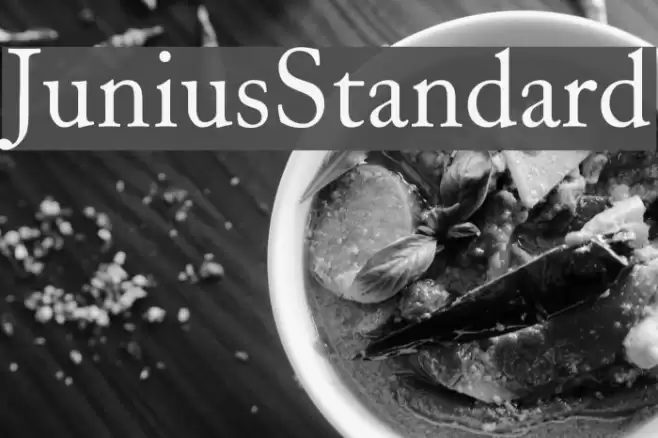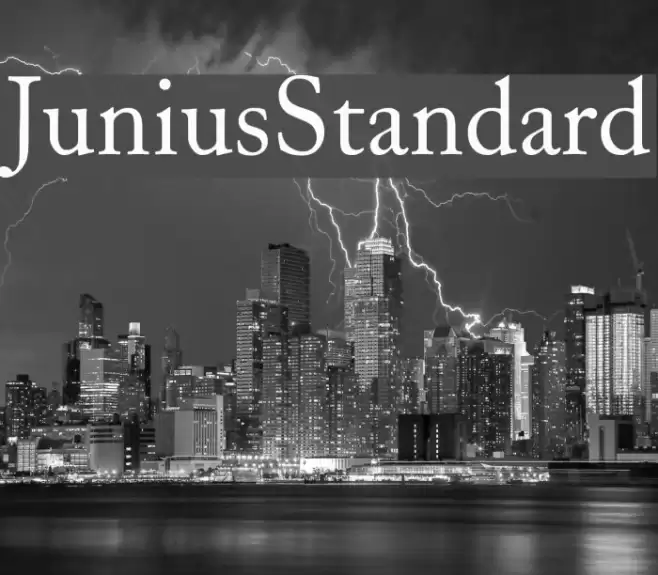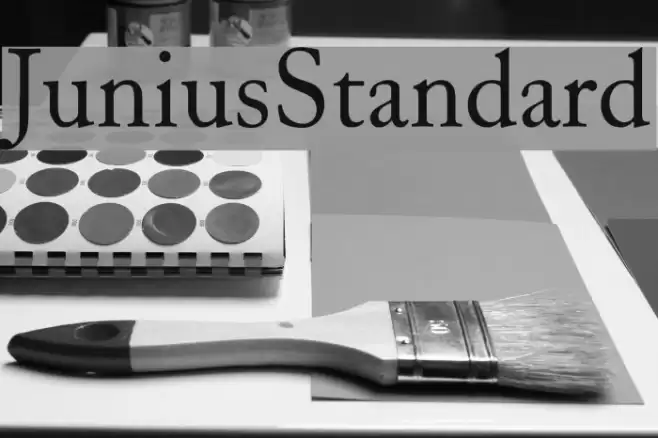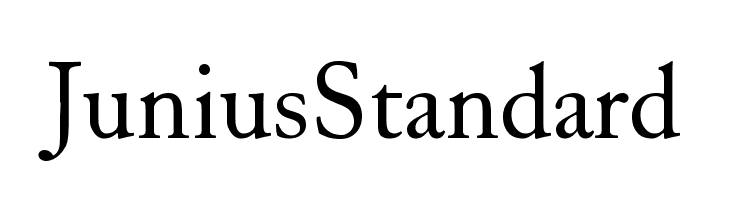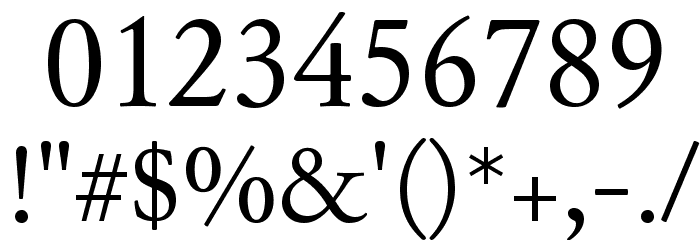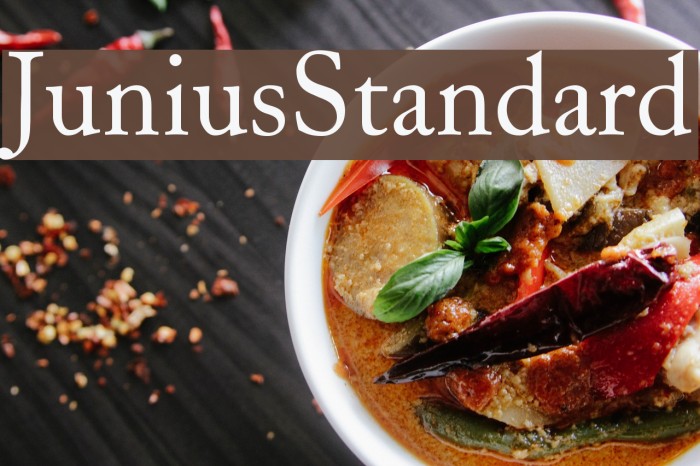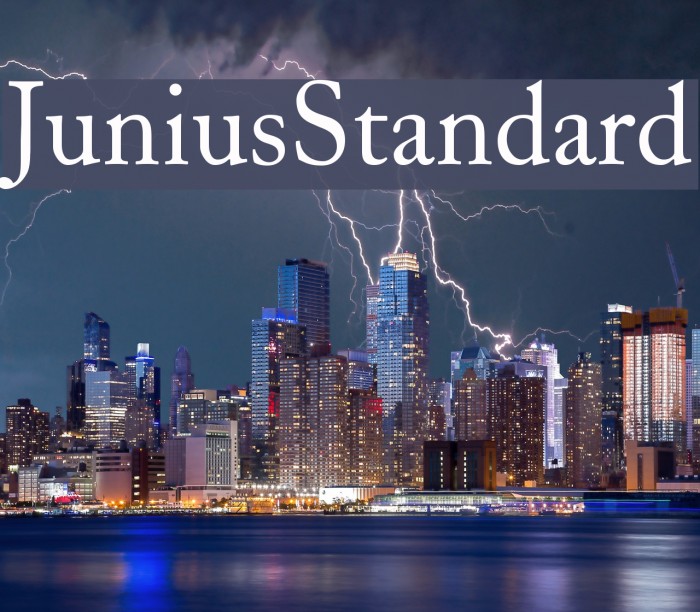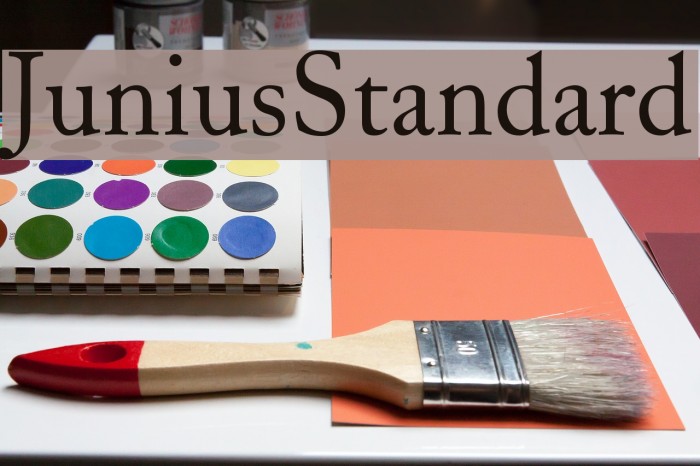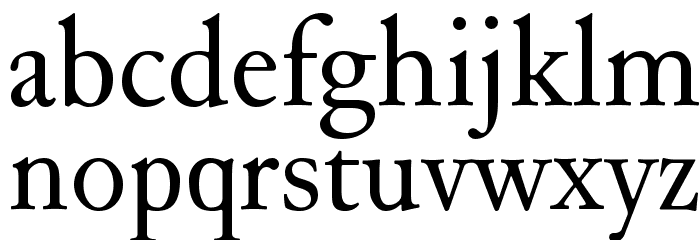
JuniusStandard Font
JuniusStandard Description
This font exhibits a classic serif style with a refined and elegant appearance. The characters are well-proportioned, featuring distinct serifs that add a touch of sophistication. The uppercase letters are bold and commanding, while the lowercase letters maintain a graceful flow. The numerals are clear and balanced, making them easy to read. The special characters are designed with the same attention to detail, ensuring consistency across the typeface. This font is versatile, suitable for both formal and creative applications, and its timeless design makes it a great choice for a variety of projects.
A classic serif font with elegant and refined characteristics from Uncategorized fonts.
- Proposed Projects: Ideal for book covers, editorial design, branding, and formal invitations.
- Overall Style: Classic